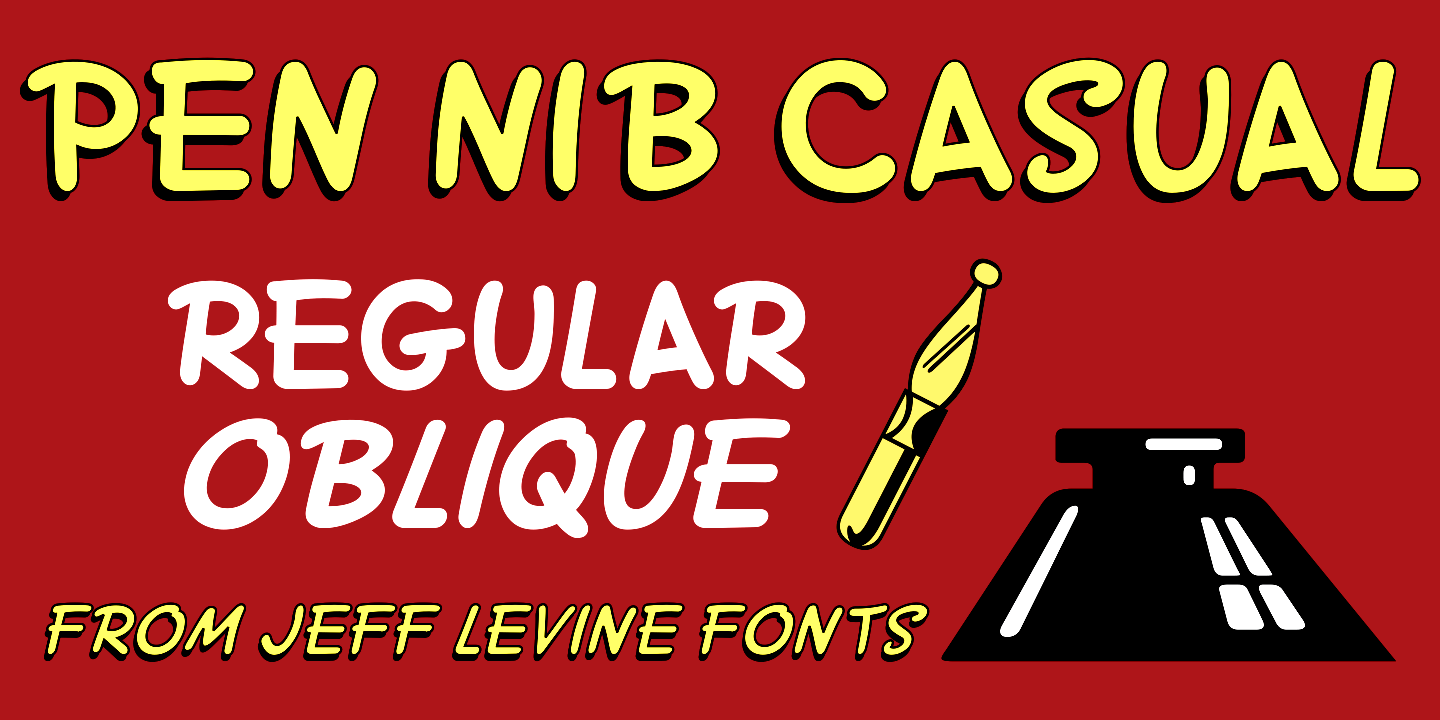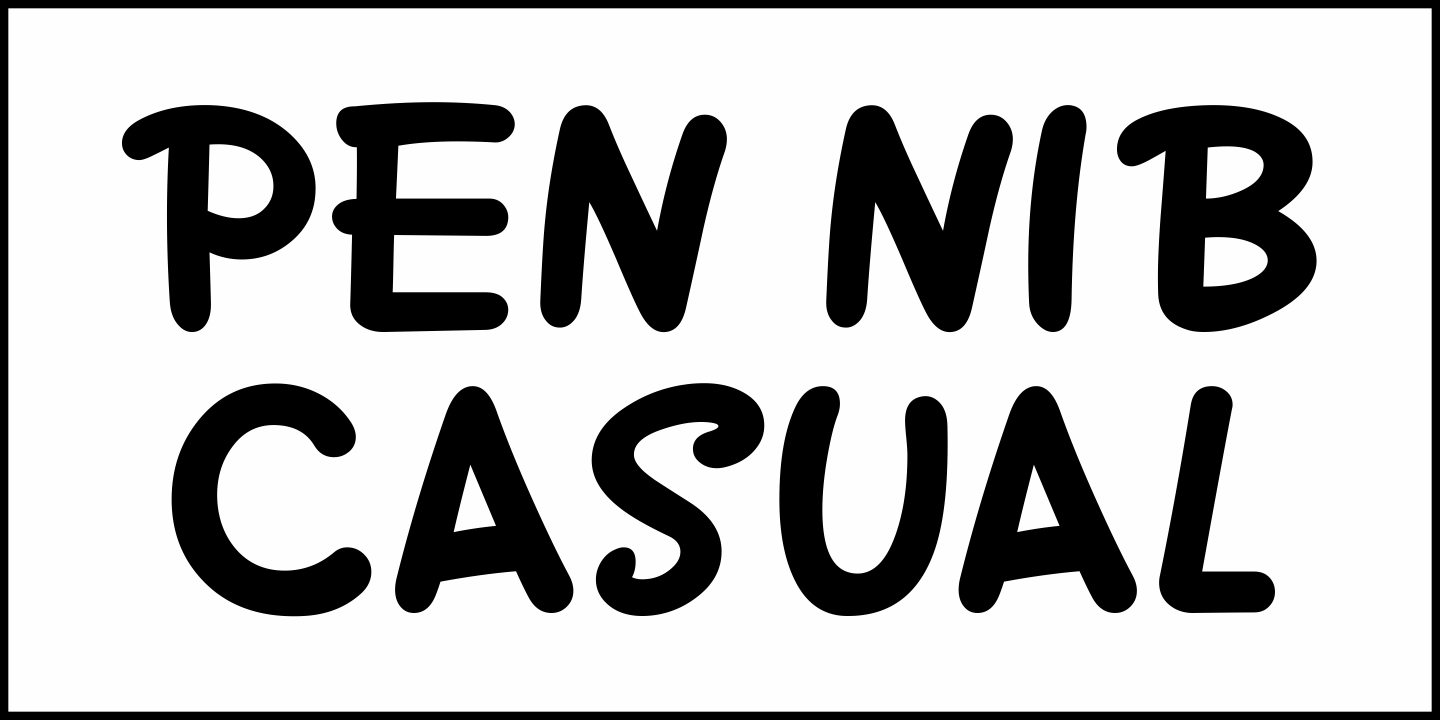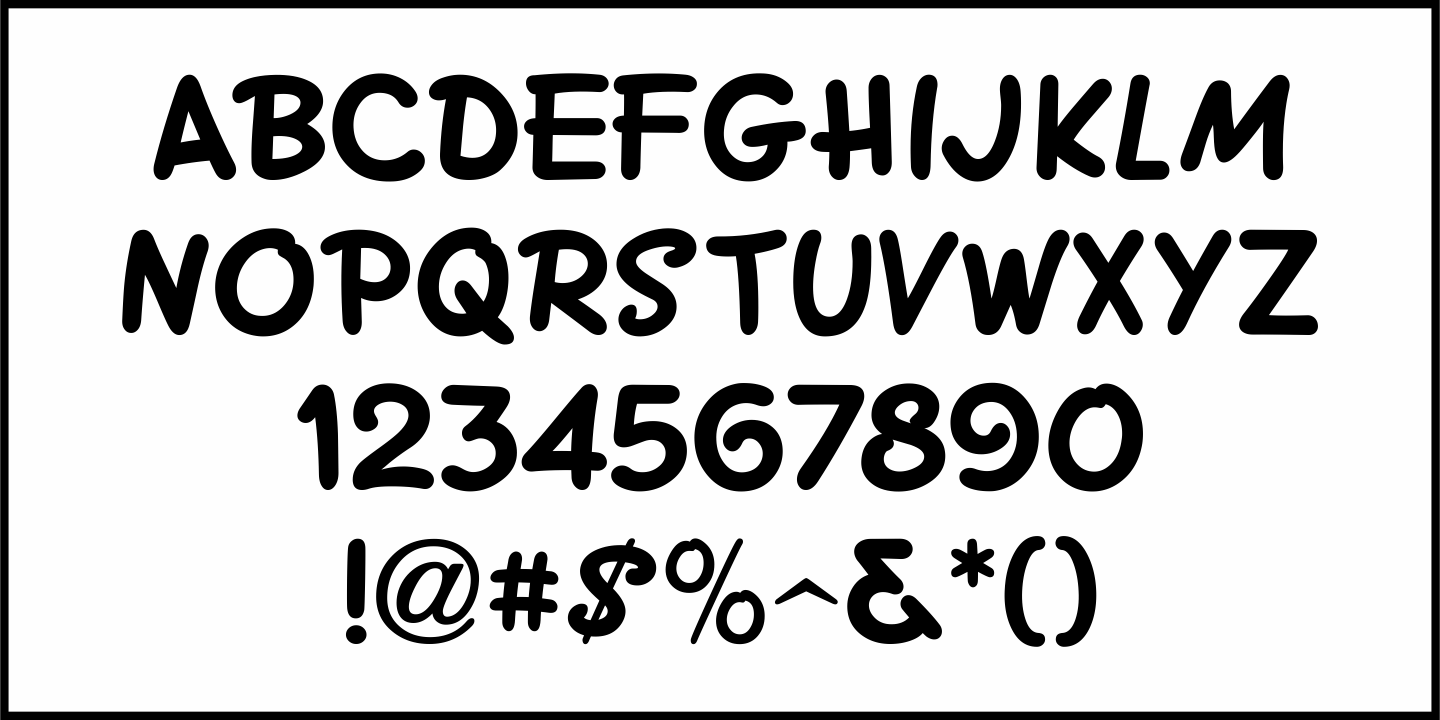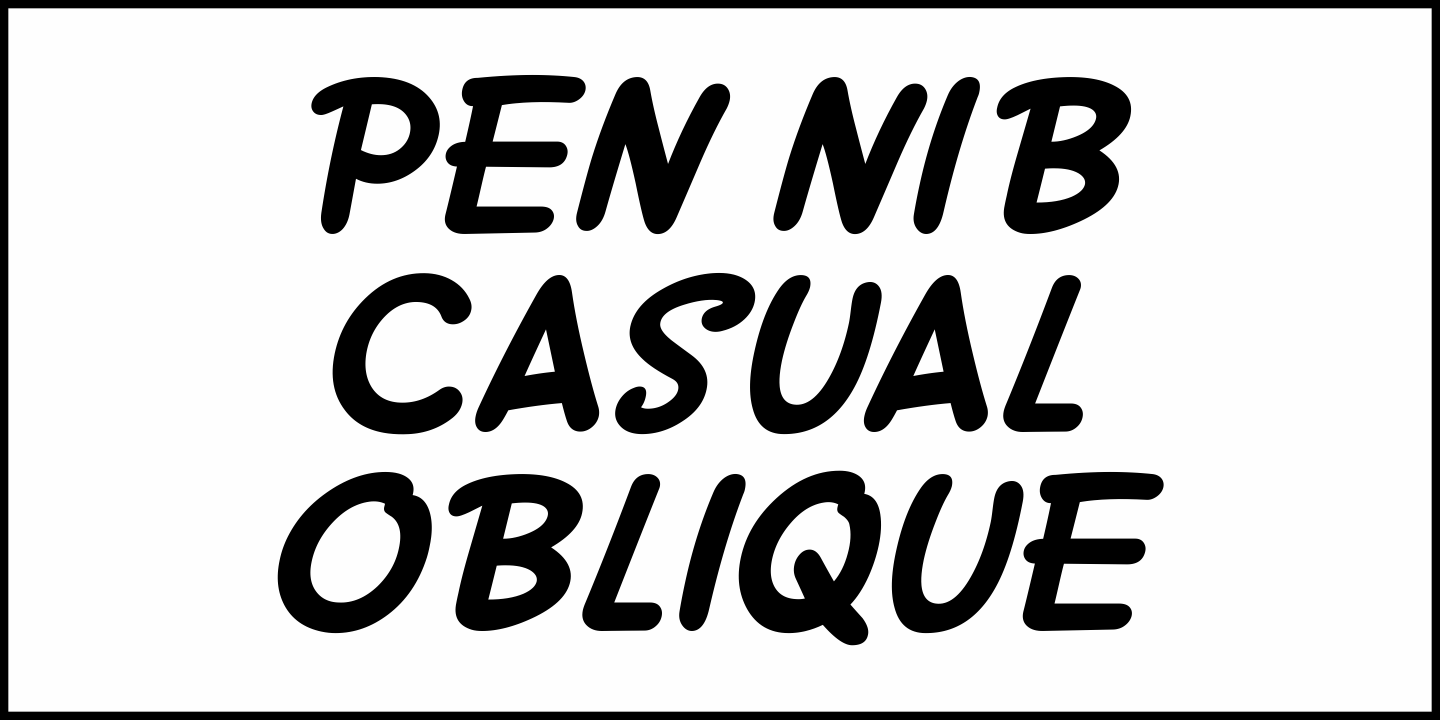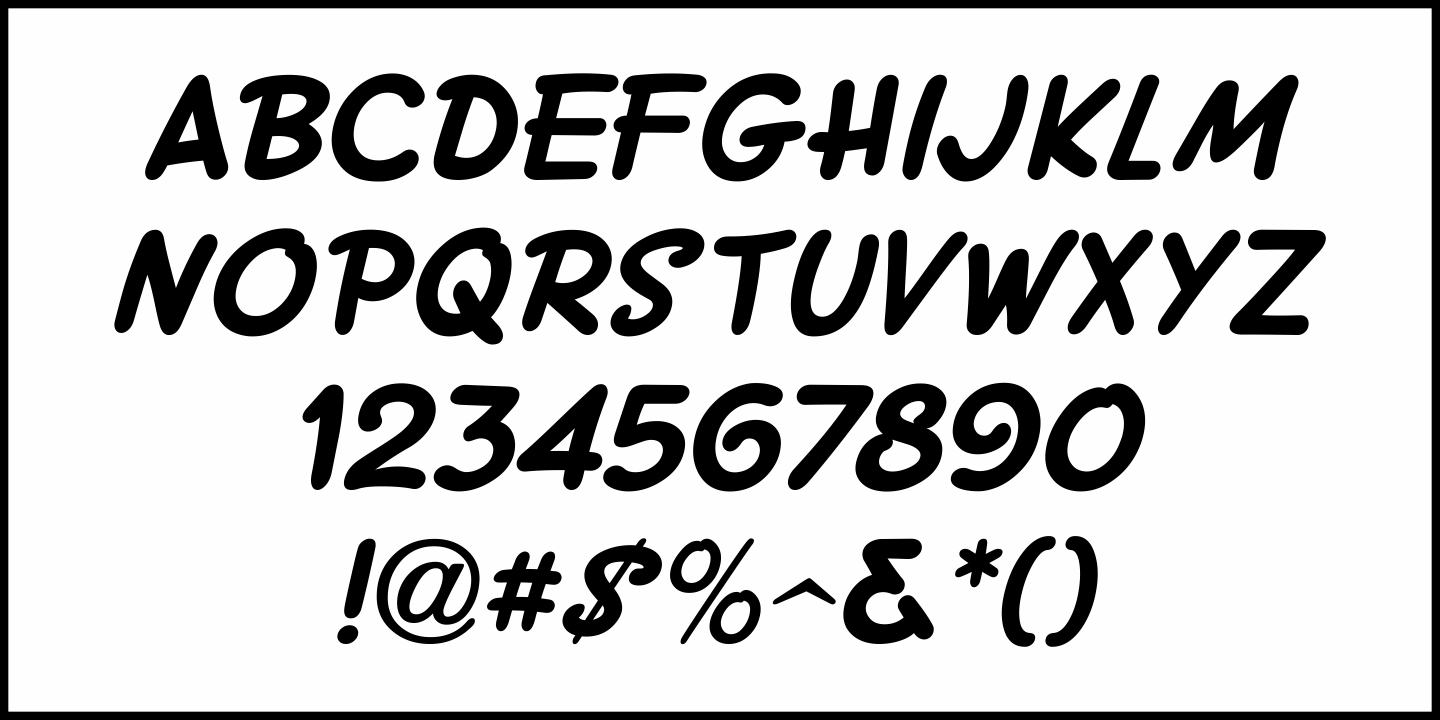
Pen Nib Casual
An ad in the July 25, 1936 issue of Motion Picture Herald promoting new releases from 20th Century Fox was hand lettered in a bold, casual, free form style utilizing a round nib pen.
Pen Nib Casual JNL emulates the text found in printed notes or memos, and is available in both regular and oblique versions.